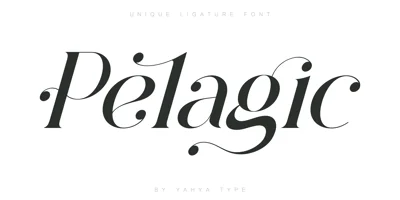
Pelagic Bird Font
Pelagic Bird Font is ideal for nature-inspired branding, wildlife conservation campaigns, organic product packaging, eco-friendly business logos, marine biology publications, and environmental awareness designs.
Pelagic Bird Font is exciting because it captures the graceful essence of oceanic birds in flight, offering designers a unique typeface that embodies freedom, natural beauty, and the serene spirit of coastal environments.
The Pelagic Bird Font family includes elegant variations: Pelagic Bird Light, Pelagic Bird Regular, Pelagic Bird Medium, decorative flourishes, and ornamental elements inspired by seabird silhouettes.
Soar to new creative heights with Pelagic Bird Font, an elegant typeface that brings the tranquil beauty of maritime nature to your design projects. This sophisticated font perfectly balances readability with artistic flair, making it exceptional for luxury resort branding, sustainable fashion labels, and premium wellness products. The carefully crafted letterforms echo the flowing movements of seabirds gliding over ocean waves, creating a sense of natural harmony and peaceful elegance. Whether designing spa treatments, coastal real estate marketing, or artisanal seafood packaging, this font communicates authenticity and environmental consciousness. Each character flows with organic grace while maintaining professional clarity across print and digital media. Pelagic Bird Font transforms ordinary text into inspiring visual poetry that connects audiences with nature's timeless beauty.